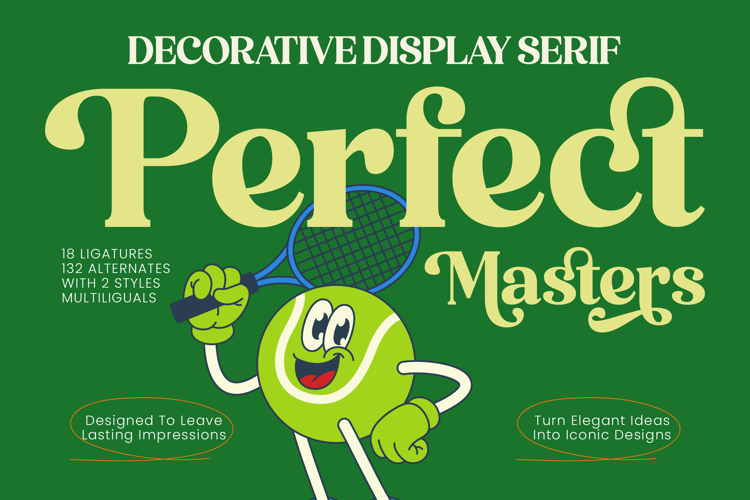
Perfect Masters - Decorative Display Serif
Elevate your creative vision with a typeface that embodies timeless sophistication and bold artistic expression. Perfect Masters - Decorative Display Serif is a masterpiece of balance, blending high-contrast strokes with elegant curves to create a visual impact that is both nostalgic and strikingly modern. Designed for those who demand premium quality, this font captures the essence of high-end craftsmanship while maintaining a playful, decorative charm that sets it apart from traditional serif families.
Precision engineering meets boundless creativity through a robust set of 18 ligatures and 132 alternates that offer unparalleled customization for any layout. With its extensive multilingual support, Perfect Masters - Decorative Display Serif adapts seamlessly across global markets, making it incredibly versatile for international projects. This functional diversity ensures that your message remains clear and stylistically consistent, regardless of the language or the geographic reach of your marketing campaign.